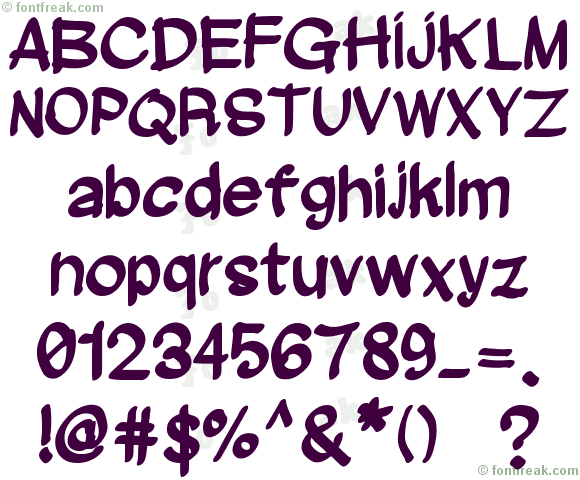
Matias Font
About Matias Font
Matias Font, crafted by the talented woodcutter Manero, is a distinctive display typeface that captures attention with its playful and organic aesthetic. This font is characterized by its unique stroke weight and irregular shapes, giving it a handcrafted feel that resonates with authenticity. The design features a moderate contrast in thickness, creating a lively rhythm that enhances its visual appeal. The spacing is well-balanced, allowing for easy readability while maintaining a whimsical charm. Decorative elements are subtly integrated, adding a touch of personality without overwhelming the design.
Matias Font is versatile and well-suited for a variety of creative applications. It shines in wedding invitations, where its charming qualities can evoke a sense of joy and celebration. Additionally, it is perfect for movie posters, bringing an artistic flair that can capture the essence of a film's theme. Restaurant menus benefit from the font's engaging style, providing a warm and inviting atmosphere for diners. Content creators will find Matias Font ideal for social media graphics, helping to craft visually striking posts that stand out in crowded feeds. Graphic designers and small business owners will appreciate its unique character, making it a valuable addition to their toolkit.
What sets Matias Font apart is its ability to blend creativity with functionality. The combination of its playful design and practicality makes it an excellent choice for projects that aim to connect emotionally with an audience. Whether you’re looking to add a personal touch to your designs or create eye-catching promotional materials, Matias Font font free download offers an accessible solution for your typography needs. Its distinctive style and versatile applications make it a must-have for anyone looking to elevate their visual projects.